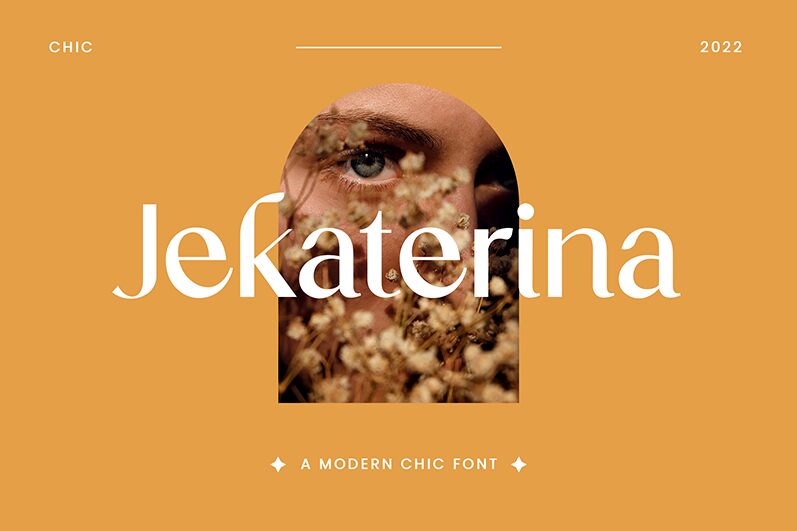
Jekaterina
Jekaterina sans serif font by UI Creative is inspired by the strong presence and elegance of the women from old magazines covers. The vintage appearance and modern structure of the font bring a contemporary twist to projects that demand a classy touch.
The sans serif font will be perfect for display fonts, branding and logo design, signage, packaging, fashion and makeup industry related publications and design, and any other related design project.